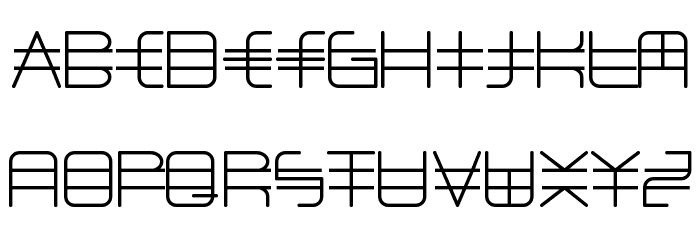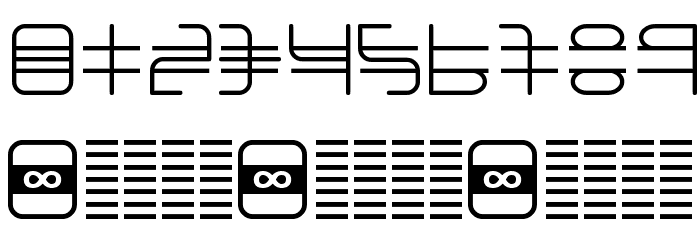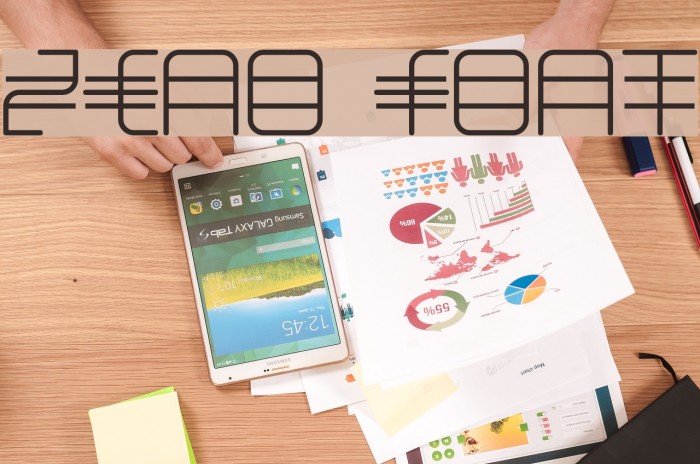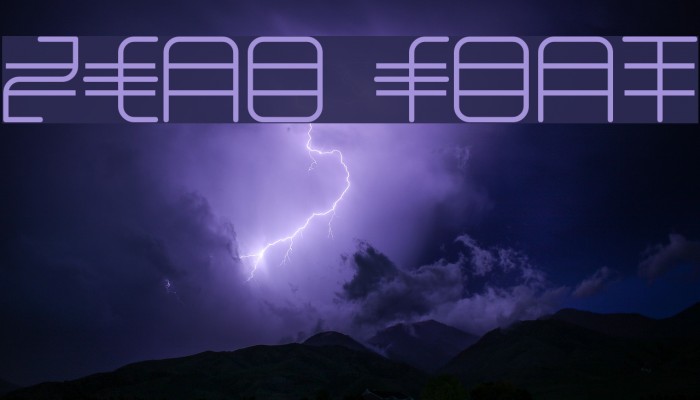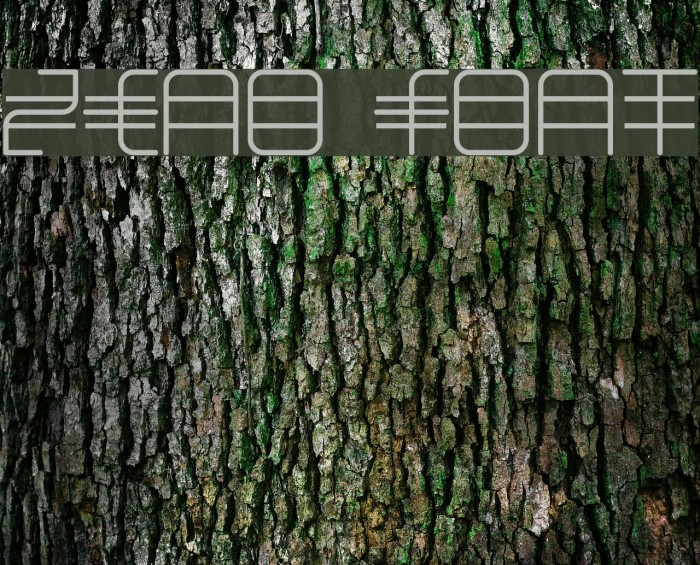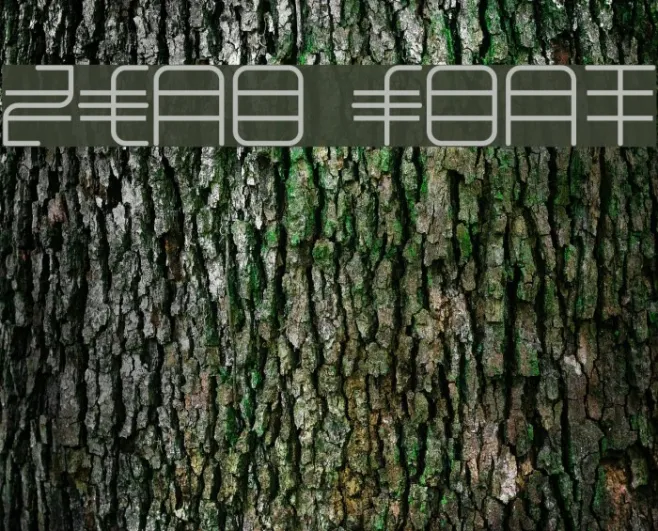
Zeno Font
This font features a futuristic and geometric design, characterized by its unique use of horizontal lines intersecting with the main strokes of each character. The letters are constructed with a consistent stroke width, giving it a monolinear appearance. The design incorporates elements of both modern and digital aesthetics, with a focus on symmetry and balance. The characters are slightly condensed, enhancing the compact and sleek look. The font includes a full set of uppercase and lowercase letters, numbers, and a selection of special characters, all maintaining the same stylistic approach. The overall impression is one of innovation and technology, making it suitable for projects that aim to convey a sense of modernity and forward-thinking.
A futuristic, geometric font with monolinear strokes and a digital aesthetic.
- Proposed Projects: Ideal for tech branding, digital interfaces, sci-fi themed designs, and modern advertising.
- Use Case: Logos, Headlines, Digital interfaces